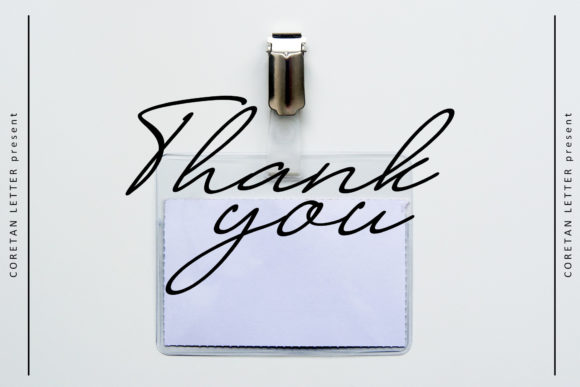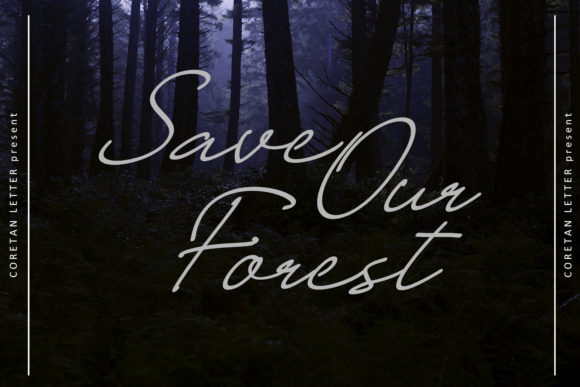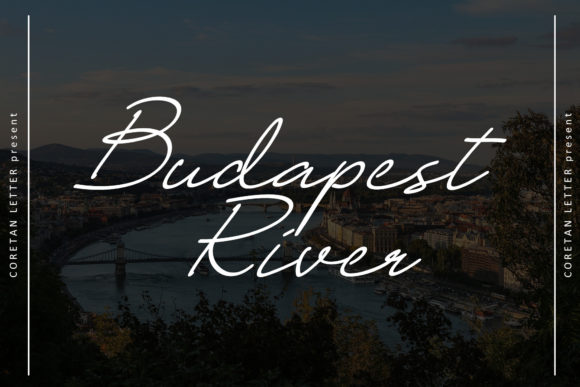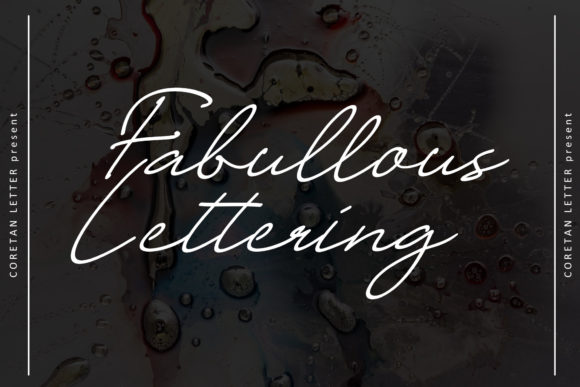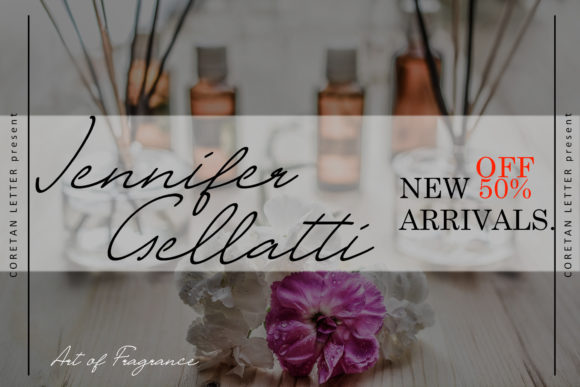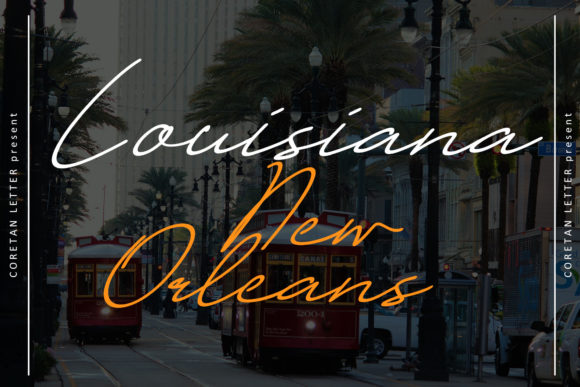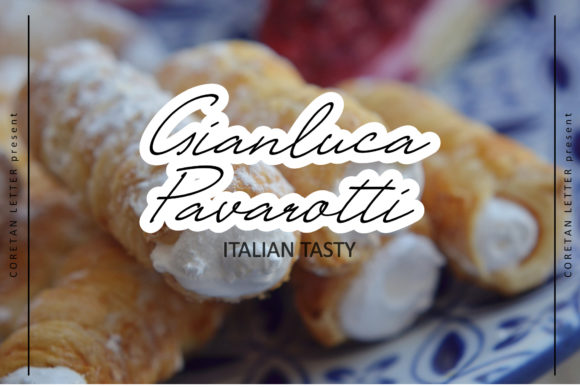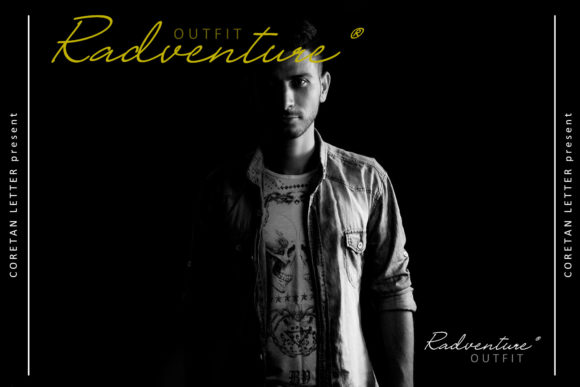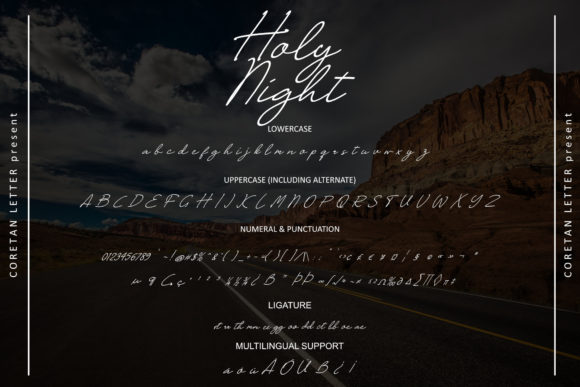
Holy Night Font
About Holy Night Font
Holy Night is a sweet and cursive handwritten font. This gentle font will look gorgeous on a variety of design ideas. It will add a joyful and romantic touch to each of your projects!